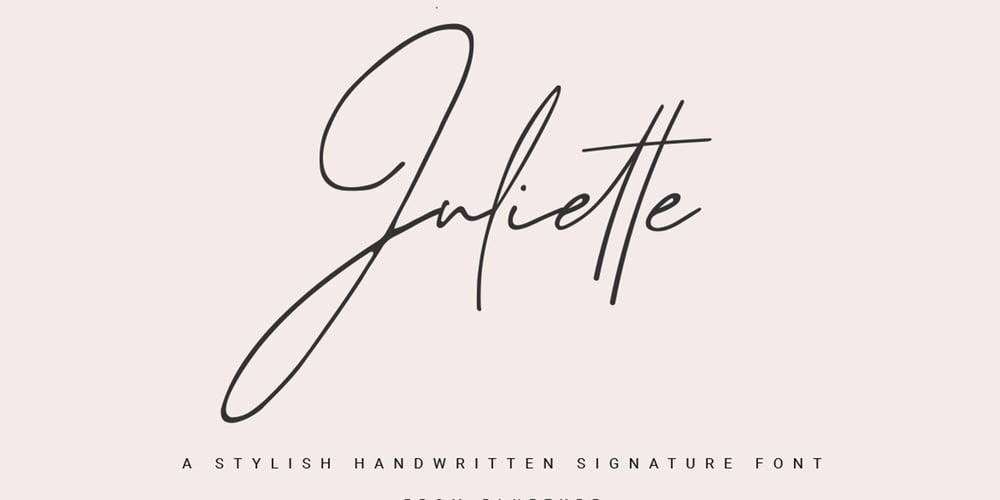
Juliette Signature Font Family was designed by Ferry Ardana Putra and published by Ferry Ardana Putra. Juliette Signature contains 1 styles and family package options. Juliette Signature is natural hand-lettered font manufactured by Bluetype. You will get full set of lowercase and uppercase letters, numerals and punctuation, multilingual symbols, alternate lowercase, and pack of ligatures.This font that is suitable for branding, signature, wedding invitation, promotion, product packaging, and other needs. This font is natural, simple, but still authentic and very stylish.FEATURES Ligatures Uppercase and Lowercase letters Numbering, Symbols, and Punctuations Multilingual Support